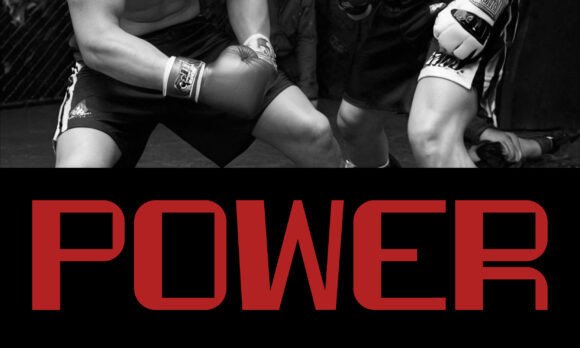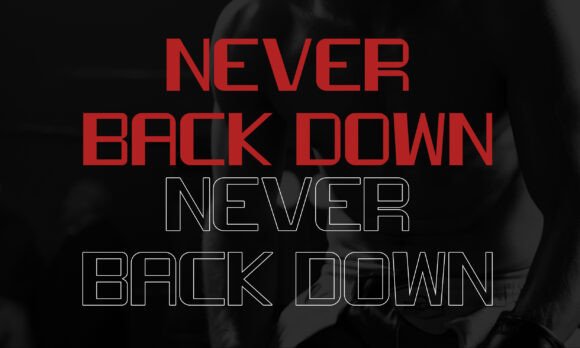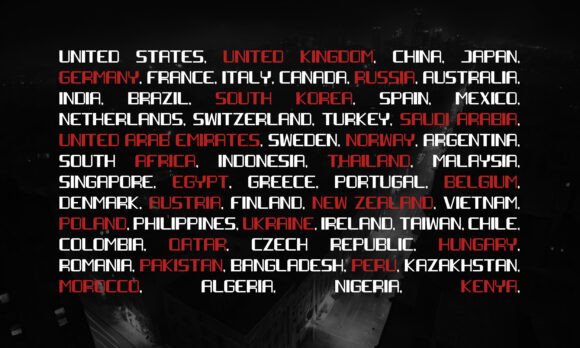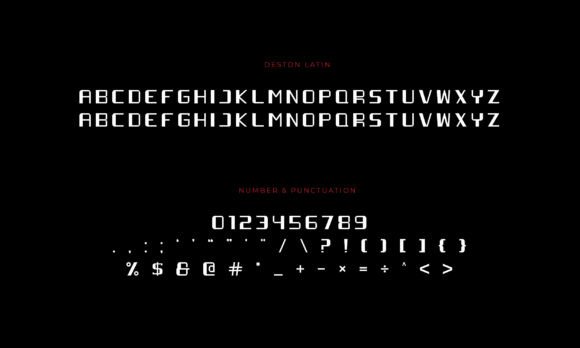
Introduction to Deston Font
Have you ever stared at a blank page, waiting for the perfect font to spark your creative project? It’s a moment every designer knows all too well. For those seeking a high-quality design resource that makes a statement, look no further than the Deston Font.
Deston Font is a game-changer for designers, offering a unique blend of modernity and strength. Its sleek, geometric edges cut through even the most complex designs with ease, making it an ideal choice for anything from bold headlines to eye-catching graphics.
Key Features of Deston Font
- High-quality design resource ideal for creative projects, offering a unique and elegant look.
- Features a transparent background, allowing for effortless layering and customization in your design.
- Includes a wide range of glyphs and characters, making it suitable for both personal and professional use.
- Deston Font is a versatile and modern font that can be used for a variety of creative projects, from logos to brochures and beyond.
Honest Review: Deston Font
As a designer, I’m always on the lookout for high-quality design resources that can elevate my creative projects. Recently, I stumbled upon the Deston Font, and I’m excited to share my honest review with you.
- ✨ Unique and modern design style that adds a touch of sophistication to any project.
- ✨ Available in a variety of weights and styles, making it perfect for a range of creative projects.
- ✨ Transparent background, allowing for seamless integration into any design.
Any limitations:
- ⚠️ Limited character set, which may not be suitable for projects requiring extensive text.
- ⚠️ Not ideal for projects requiring bold or dramatic font styles.
Overall, I’m impressed with the Deston Font’s high-quality design and versatility. While it may have some limitations, it’s a great addition to any designer’s toolkit. If you’re looking for a modern and sophisticated font for your creative project, I’d definitely recommend giving it a try.
Deston Font
The Deston Font is a versatile and high-quality design resource ideal for creative projects. Its transparent background makes it easy to use in various design platforms.
The Deston Font is suitable for a wide range of creative projects, including:
- Branding and identity